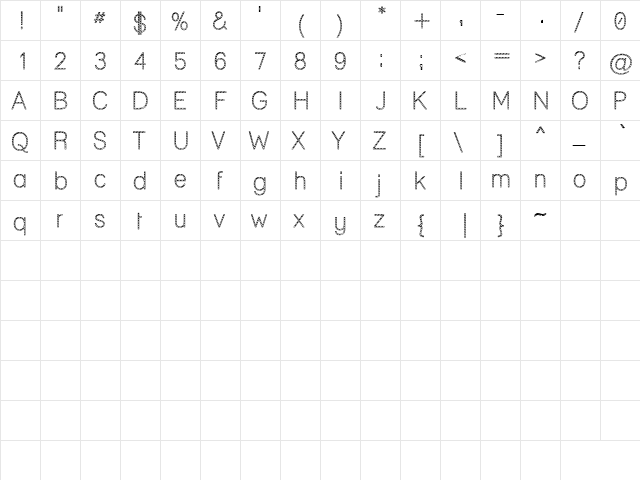
Cane Lane Light Regular
Design Context for Cane Lane Light Typeface
Cane Lane Light is a composed and adaptable typeface that performs quietly and consistently across a wide range of design contexts. The delicate stroke weight brings airiness and refinement to layouts.